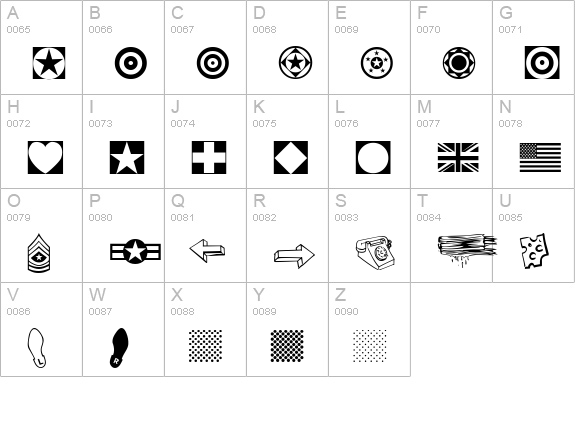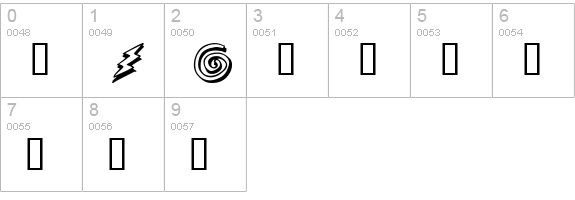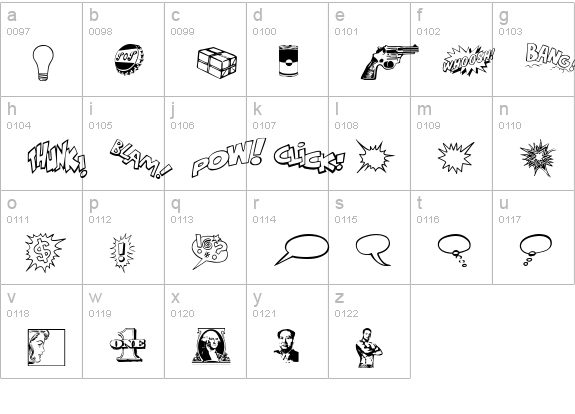
P22 Pop Art Extras Font Details
P22 Pop Art Extras font is an extraordinary typeface that encapsulates the vibrant and dynamic essence of the iconic Pop Art movement. Inspired by the bold and eye-catching artworks of artists like Andy Warhol and Roy Lichtenstein, this font is a true celebration of popular culture and artistic creativity. The P22 Pop Art Extras font offers a stunning collection of over 100 unique characters and symbols, each meticulously crafted to exude the quintessential Pop Art aesthetic. From comic book-style speech bubbles and onomatopoeic words to stylized images of cars, televisions, and even popular food items, this font is a versatile and playful addition to any designer's toolkit. What makes P22 Pop Art Extras font even more remarkable is that it is freely available for download at FontsMarket.com. This means that designers, artists, and enthusiasts alike can unleash their creativity without any cost constraints. Whether you're working on a retro-inspired branding project, designing a vibrant poster, or simply want to add a touch of Pop Art flair to your artwork, this font is the perfect choice. With its bold and captivating design, P22 Pop Art Extras font is sure to make a lasting impression. Its versatility allows for endless possibilities, whether you're creating a captivating logo, designing a visually stunning website, or adding a playful touch to your social media posts. So don't miss the chance to enhance your creative work with this exceptional font, freely available for download at FontsMarket.com. Embrace the spirit of Pop Art and let your imagination run wild!